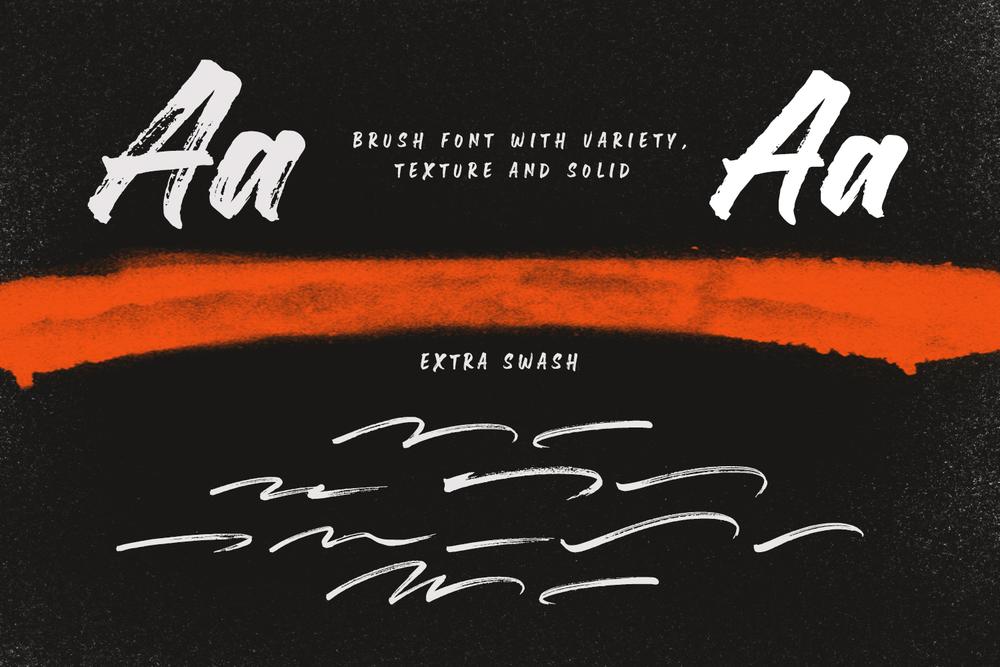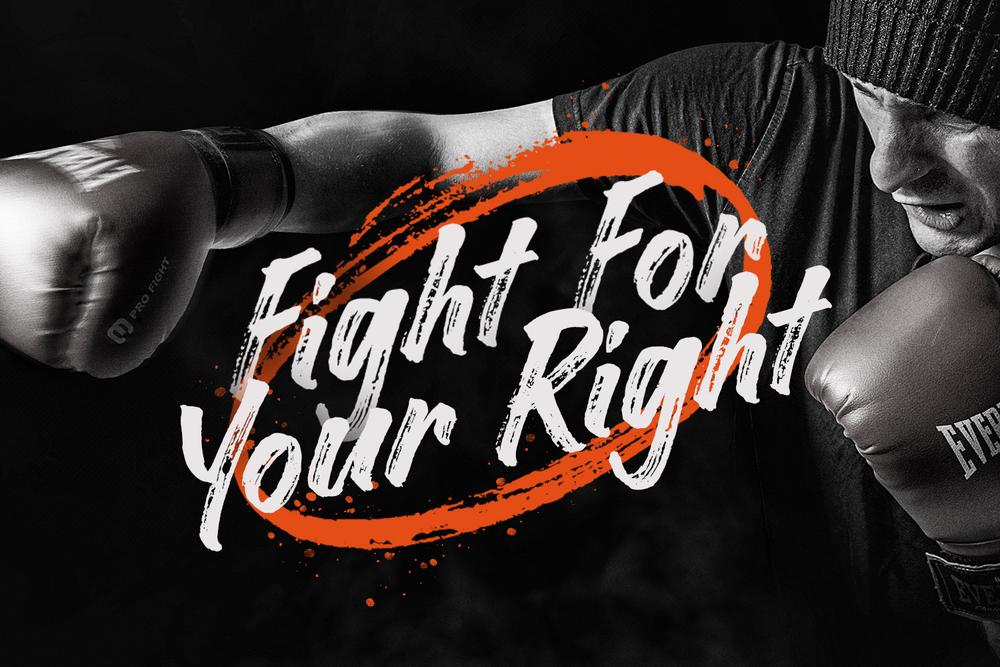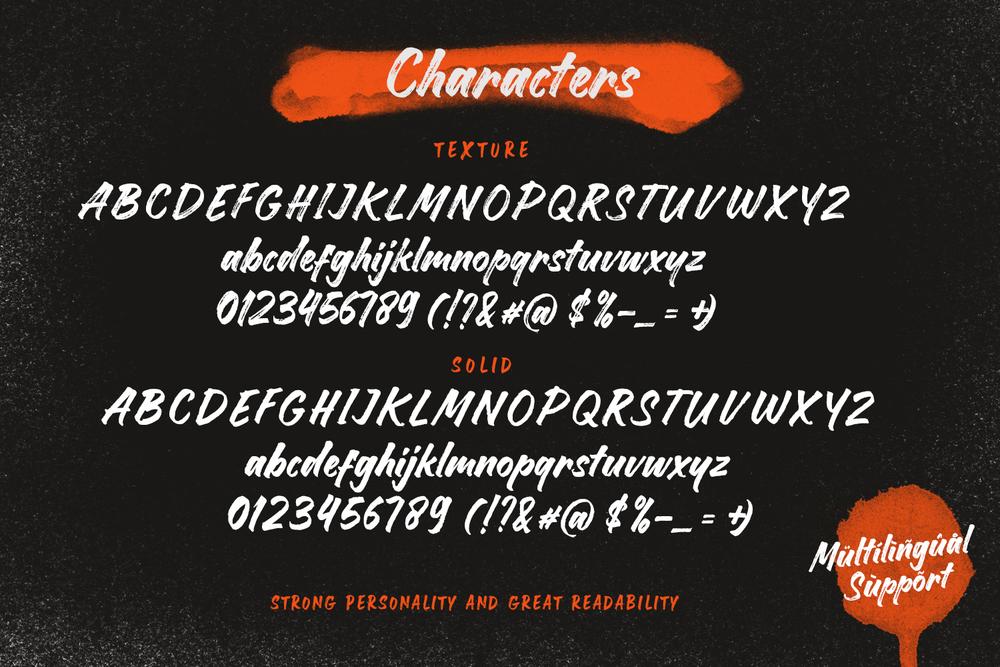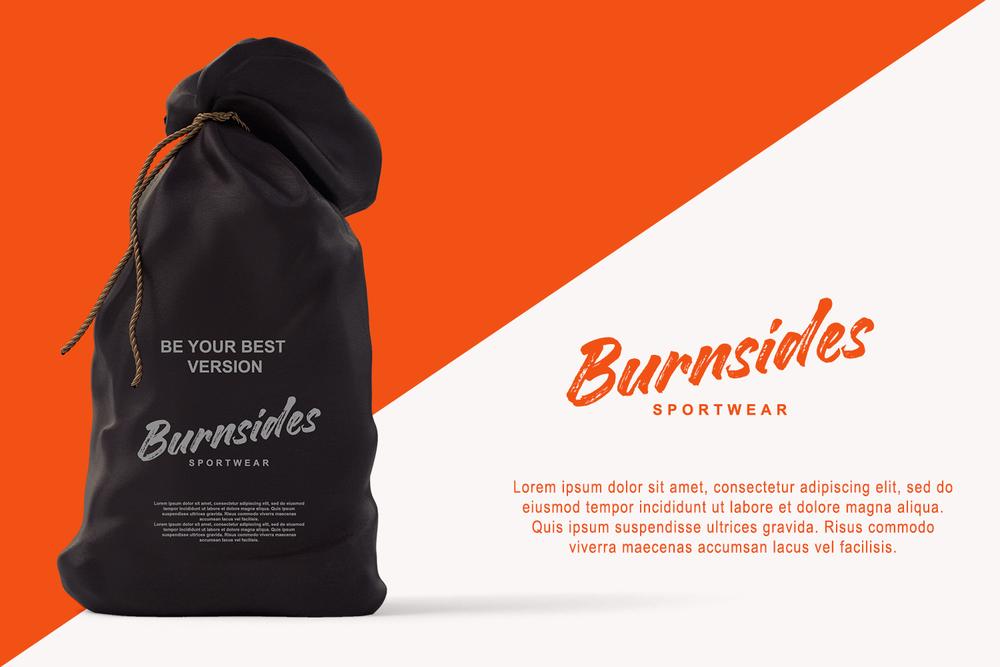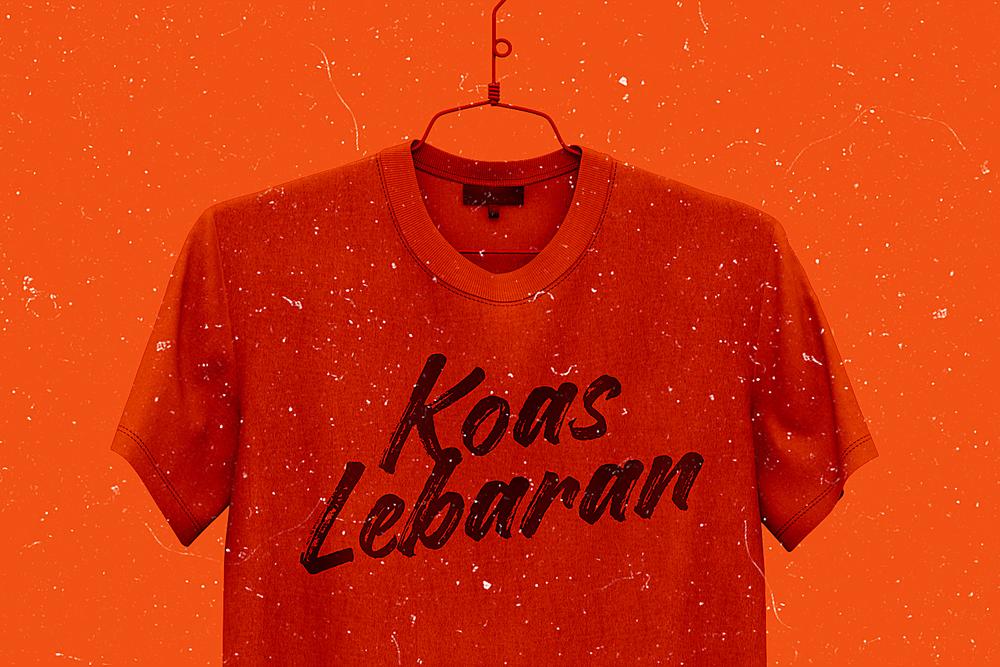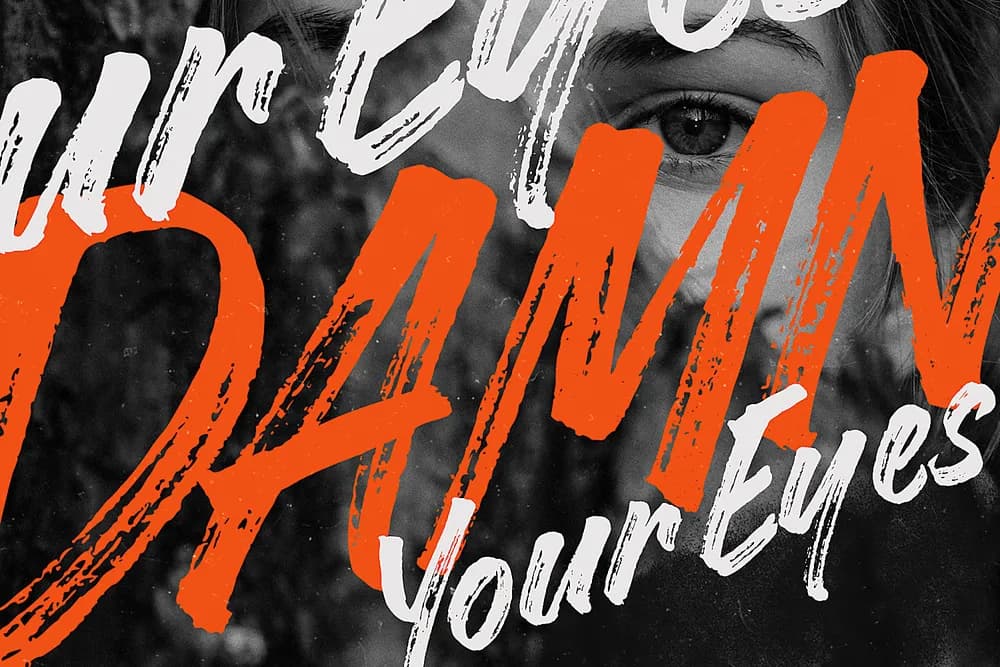
A Script brush Font with authentic dry brush strokes drawn on paper. Perfect for logo designs, poster design, social media, typographic quotes over photos, book covers and packaging design. š šššš®š«šš¬ : ā Standard ligatures ā Alternates ā Uppercase & lowercase letters ā Numerals & punctuation ā Multilingual support ā Solid & Texture Font ā Extra Swash š šØš«š¦šš : OTF, TTF, and WOFF.